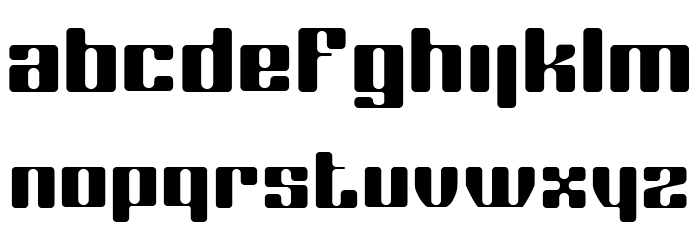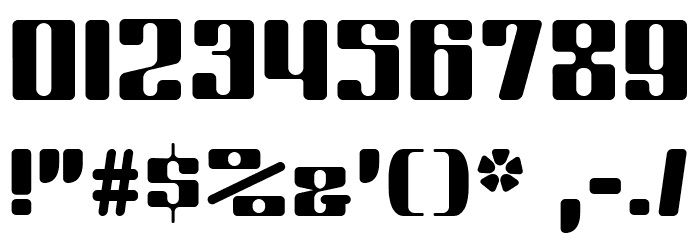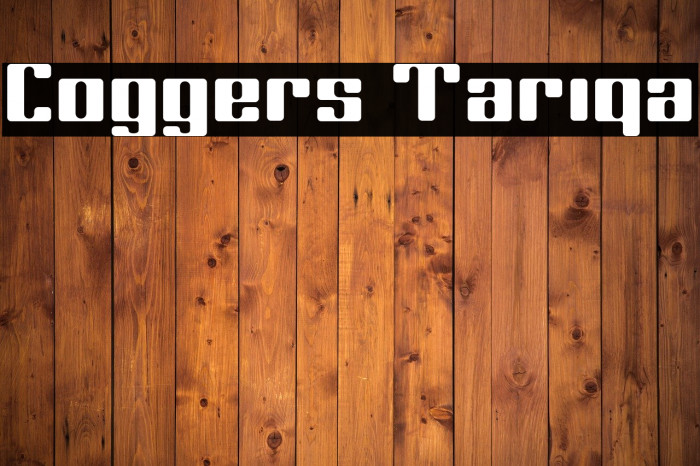
Coggers Tariqa Font
This font features a bold, geometric style with a strong presence. The characters are constructed with thick, uniform strokes, giving them a robust and modern appearance. The uppercase letters are particularly striking, with a blocky design that emphasizes their boldness. The lowercase letters maintain the same weight, creating a cohesive look across the typeface. The numerals are equally bold, ensuring they stand out in any context. Special characters are designed to match the overall aesthetic, with a consistent thickness and geometric form. This font is ideal for making a statement, whether in headlines, posters, or branding materials.
A bold, geometric font with a modern and robust style.